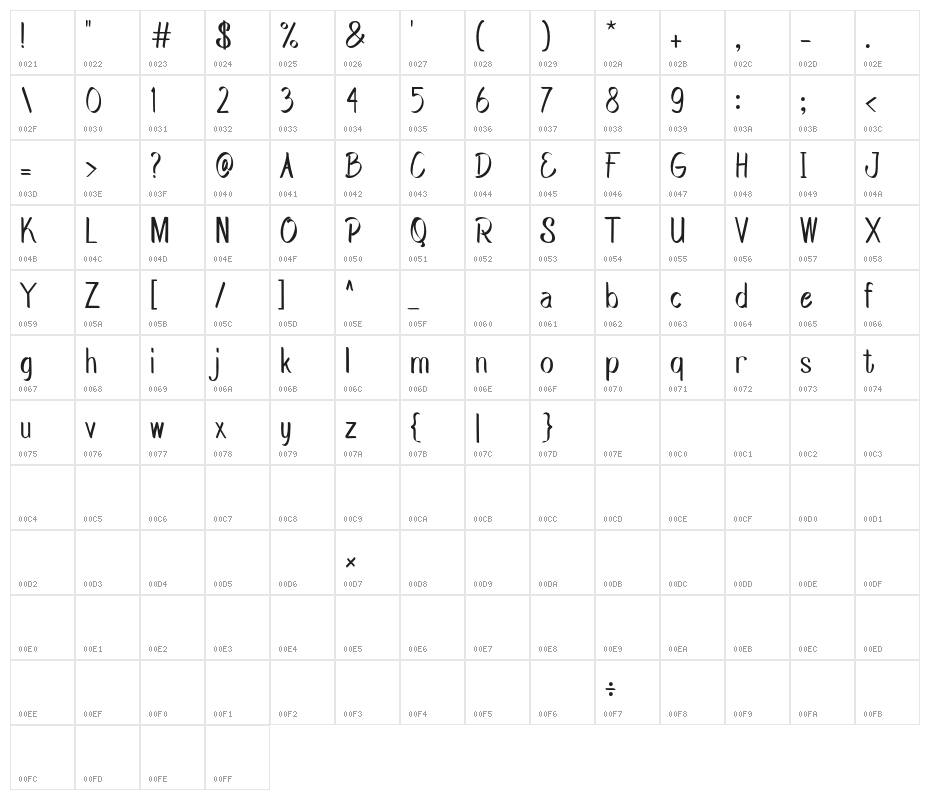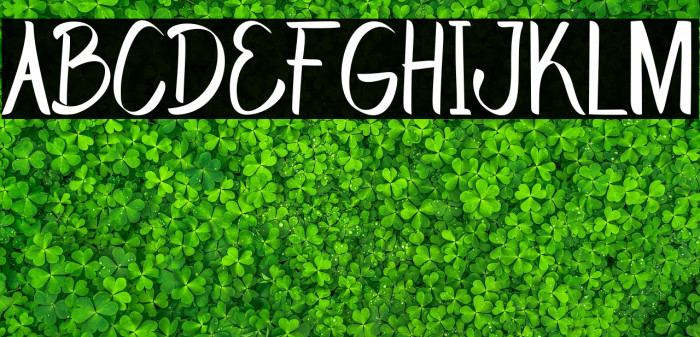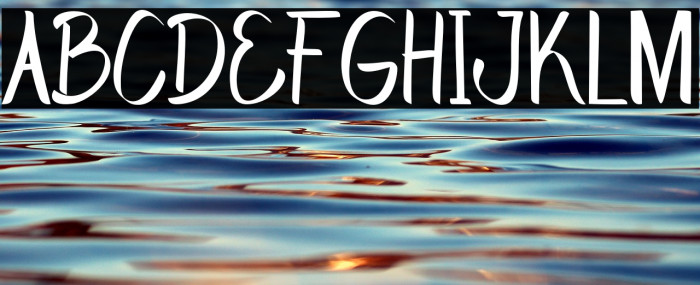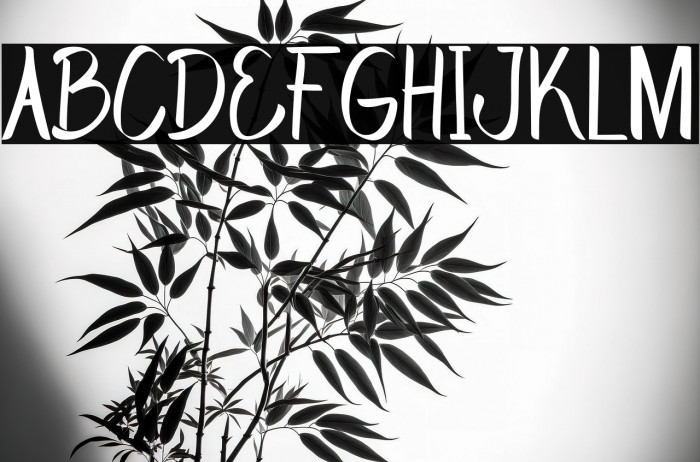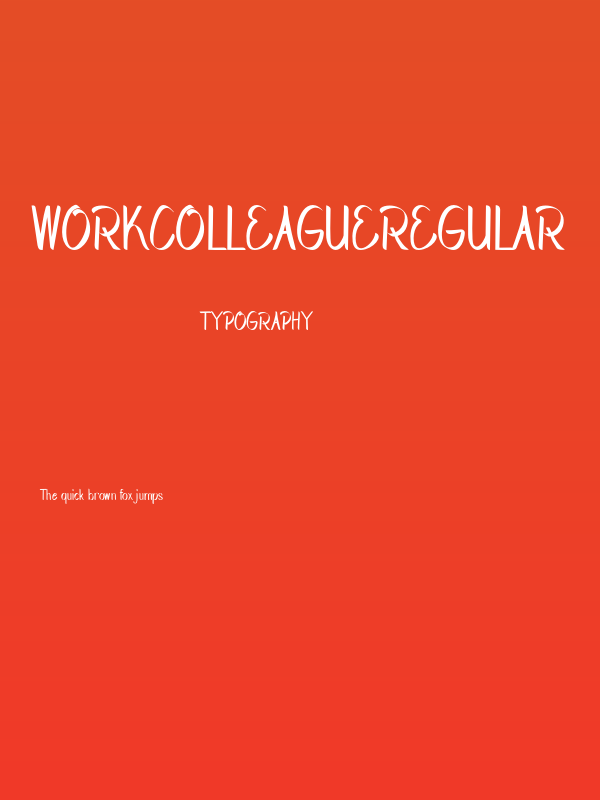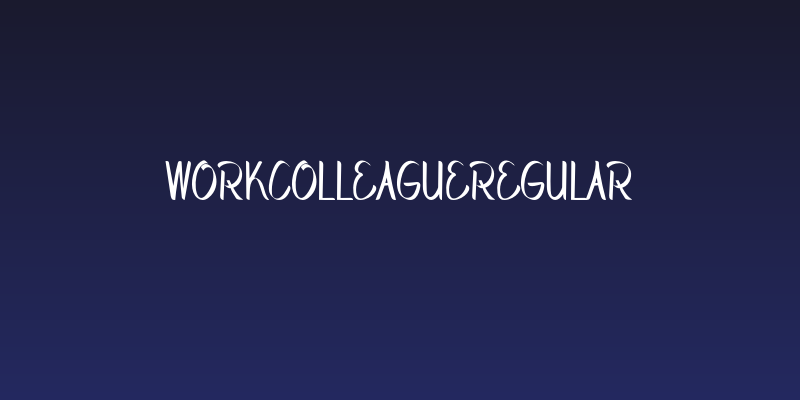
WorkColleagueRegular Font
| 全体的なスタイル | Casual, Playful |
| 用途 | Headlines, Informal text, Creative projects |
| おすすめプロジェクト | Ideal for greeting cards, invitations, children's books, and casual branding projects. |